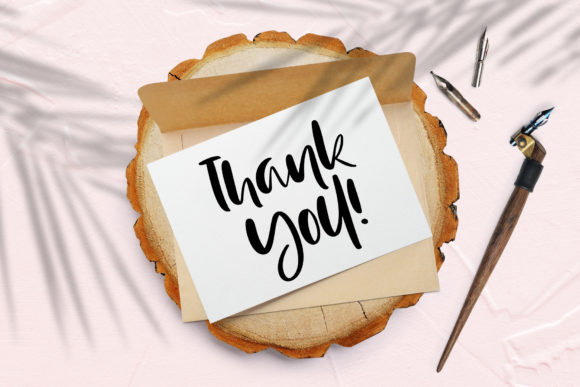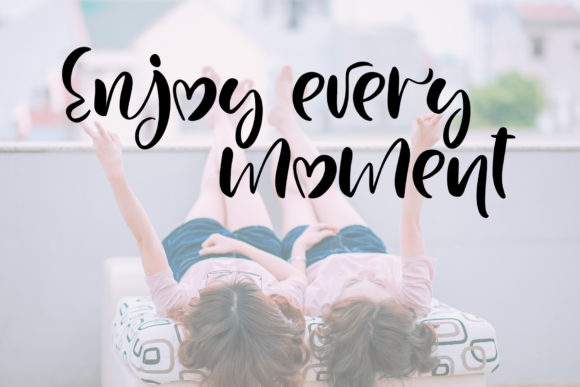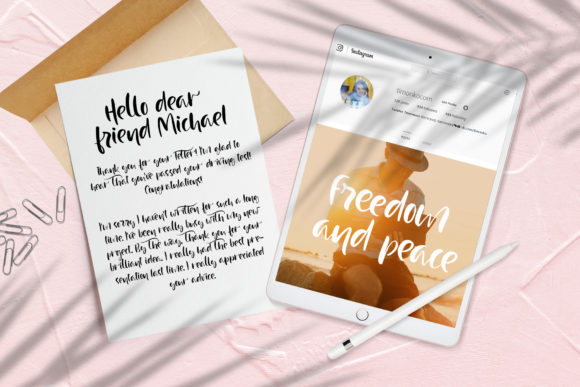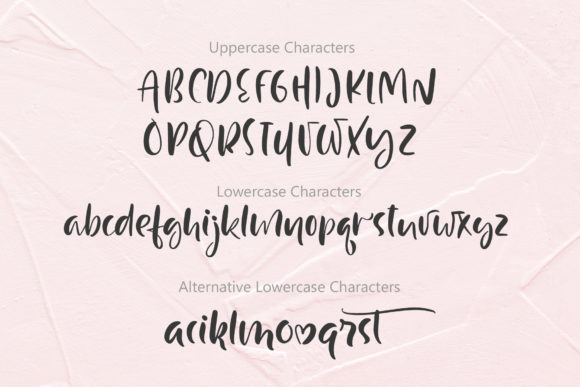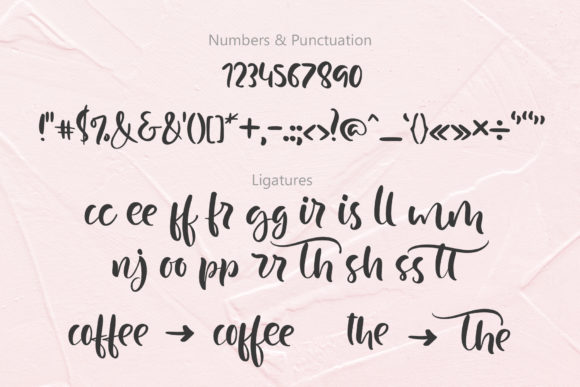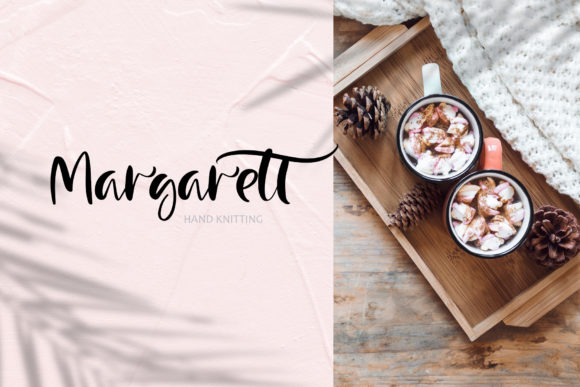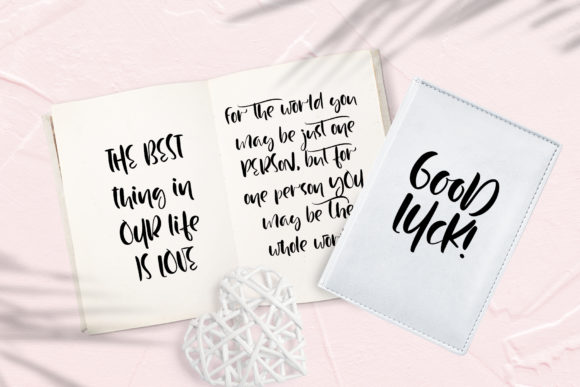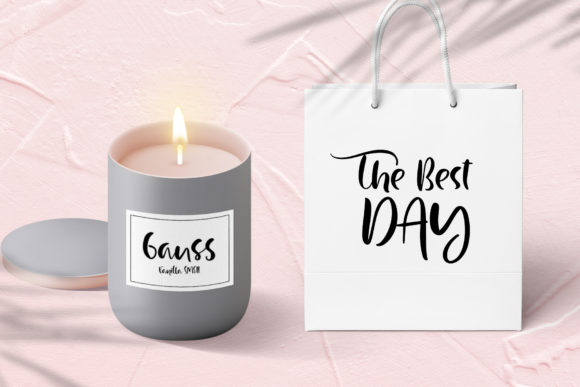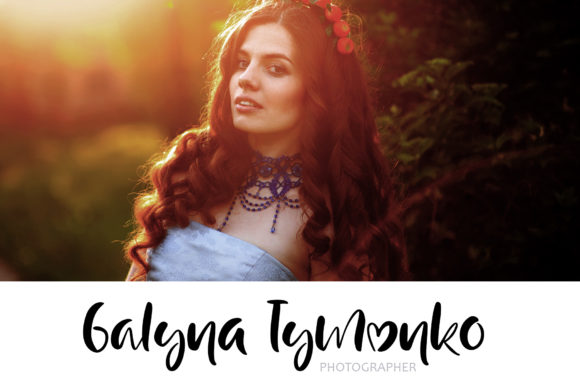
Just Case Font
About Just Case Font
Just Case is an amazing handwritten font with a light feel. Get inspired by its authentic charm, and turn any design idea into a stand out.